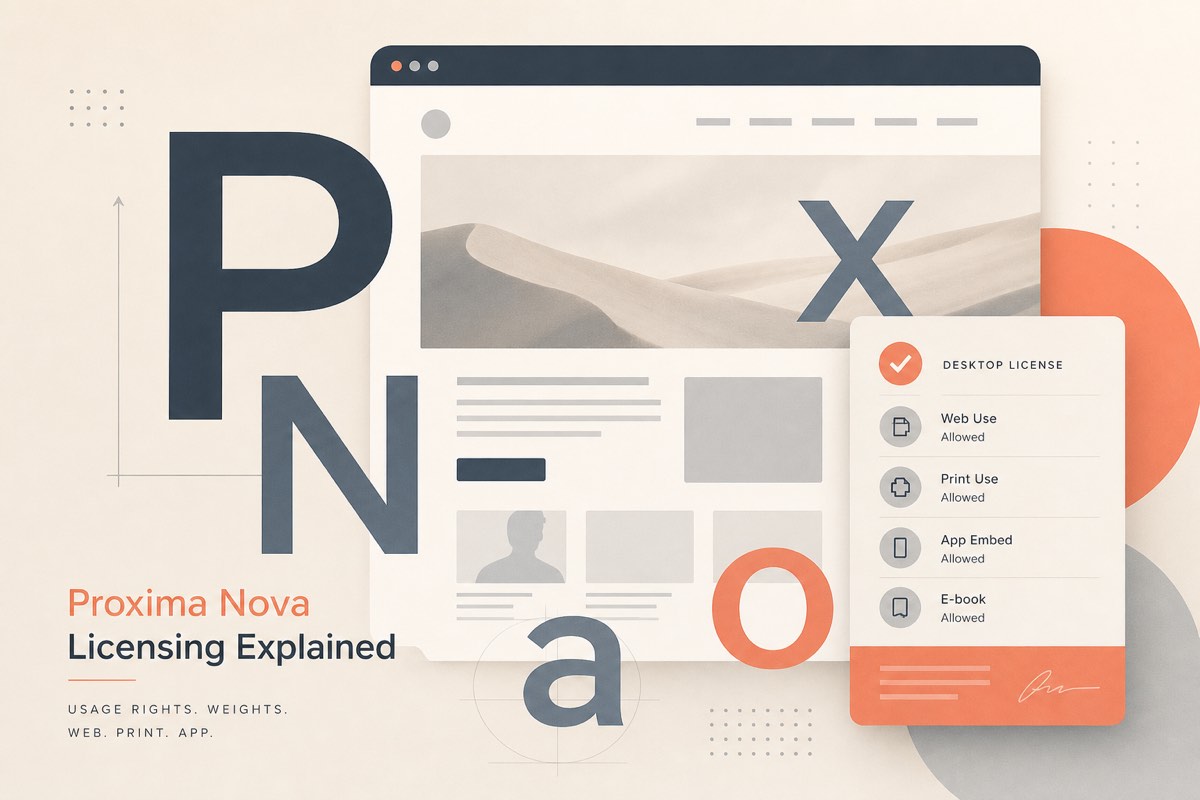
Can You Use Proxima Nova on Your Website? Licensing Explained
Proxima Nova is one of the most commonly unlicensed commercial fonts on the web. Learn what a legal web license requires and which free alternatives look similar.
Can You Use Proxima Nova on Your Website? Licensing Explained
Proxima Nova is a commercial typeface by Mark Simonson Studio (distributed via Adobe Fonts, Fontspring, and other authorized sellers). It is not open source and not free for @font-face embedding just because it appears in countless brand decks.
Why Proxima Nova Shows Up Everywhere
• Popular in startup and SaaS branding from the 2010s onward
• Bundled in design systems and UI kits shared casually between teams
• Looks "standard" enough that teams forget it is licensed IP
Free Alternatives With a Similar Feel
AlternativeNotes
MontserratGeometric sans; closest popular OFL option
Nunito SansRounded, friendly UI tone
Source Sans 3Neutral, professional
InterExcellent for UI; less geometric than Proxima
Match weight and letter-spacing carefully — a visual swap is often cheaper than a settlement.